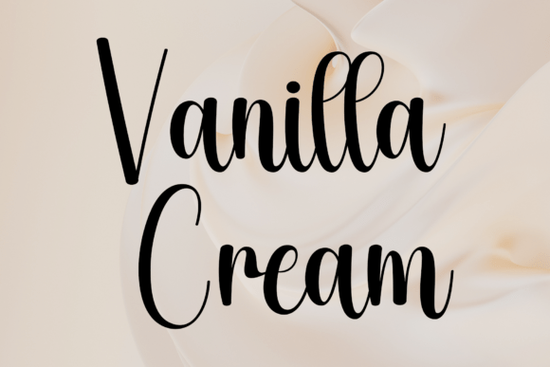
When designing luxury branding or wedding stationery, finding a typeface that feels both personal and refined can be difficult. The Vanilla Cream Font solves this problem by offering a fluid, signature-like motion that mimics natural handwriting. Created for modern elegance, this script typeface uses tall ascenders and sweeping loops to build a rhythmic flow across the page. Whether you are a print-on-demand seller creating custom mugs or a small business owner designing a logo, this specific tool gives your text an unmistakable touch of class. If you want to see how it pairs with other typography, you can always review this modern calligraphy option in our database.
How does a handwritten script improve brand identity?
A signature script builds immediate trust because it feels human and approachable. When customers see a logo made with a delicate, hand-drawn typeface, they naturally associate the brand with bespoke quality and attention to detail. This typeface excels in this area because it perfectly balances tall letters with graceful curves. This careful balance makes the text highly legible while still looking custom-made.
Crafters and creative hobbyists often use this style to add a personal touch to their projects. If your next project requires a slightly more relaxed and airy vibe, you might also look at the romantic style of Humble Moon to compare the different moods each lettering style creates.
What projects work best with this typeface?
This specific lettering style shines in high-end editorial content and special event materials. Because of its sophisticated visual flow, it works beautifully in spaces where elegance is the primary goal.
- Wedding Invitations: The elegant loops look beautiful when printed on thick cotton paper or textured cardstock.
- Luxury Packaging: Use it for cosmetic labels, boutique shopping bags, or premium candle jars.
- Apparel Design: Print-on-demand sellers can utilize this lettering to create custom clothing. A simple white t-shirt featuring a single, beautifully rendered word in this script can become a best-seller in a boutique store.
- Social Media Graphics: Pair the flowing letters with clean sans-serif text to create stylish, readable Instagram quotes.
- Signature Logos: It is an ideal choice for photographers, makeup artists, and event planners who want their name to look like a genuine signature.
For a bolder, more dramatic approach to similar design projects, graphic designers often turn to a bold alternative like Vaganza. Choosing between these styles depends entirely on the personality of the brand you are building.
Which font pairings create the best visual contrast?
To make your designs readable and visually appealing, you should always pair sweeping scripts with simple, structured fonts. A heavy geometric sans-serif grounds the delicate loops, preventing the overall design from looking too fragile. If you prefer a softer contrast, a classic serif font works just as well for body text.
Experimentation is a key part of the design process. You can test different combinations by comparing this choice with Marella's flowing letterforms or by exploring casual handwriting styles like Everyone. Mixing a formal script with a casual handwritten font can create a highly dynamic and engaging layout.